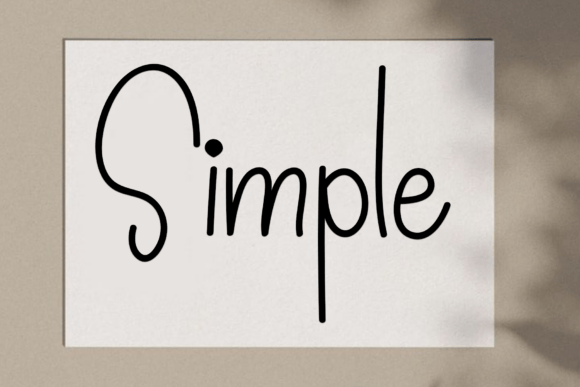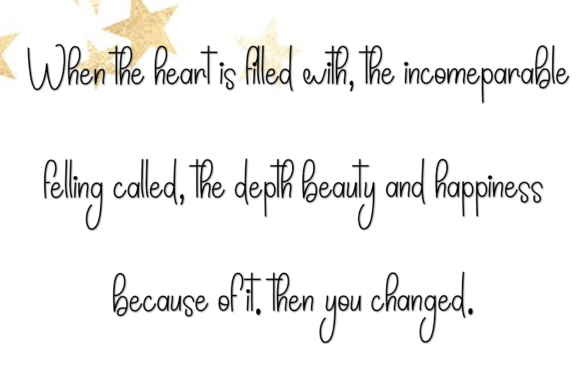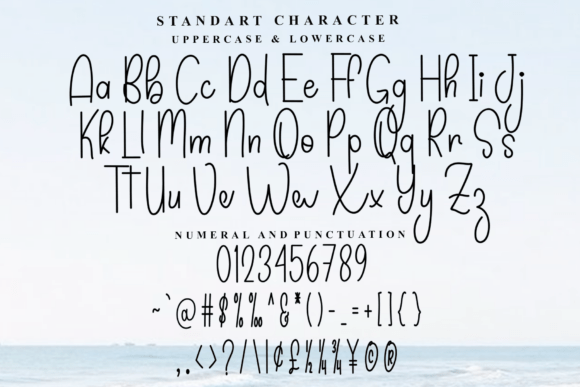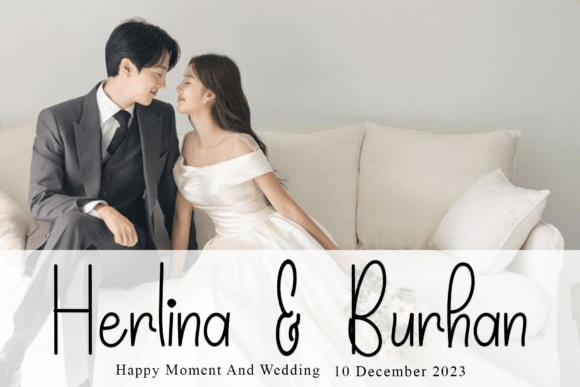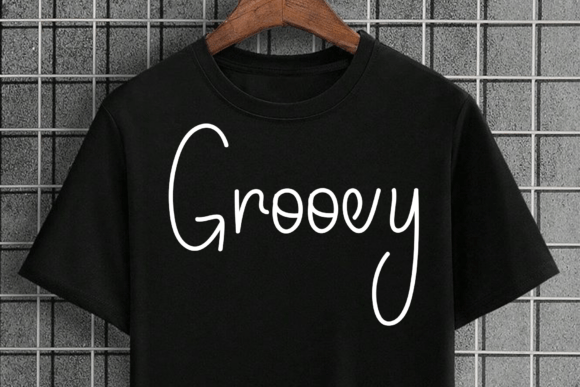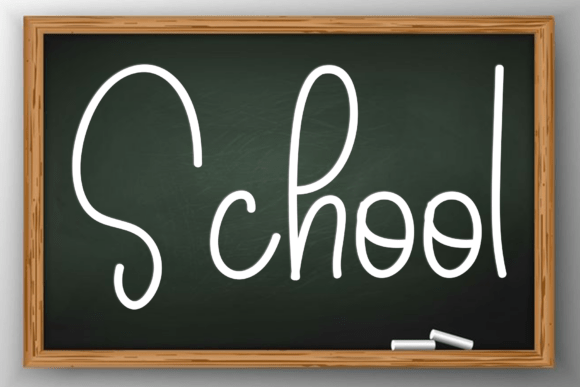
Introduction to Script Autography Font
Add a touch of personal charm to your designs with Script Autography, a simple yet stylish modern script font.
Characterized by its clean, monoline weight and playful, handwritten flow, this typeface captures the effortless feel of a natural signature Its tall ascenders and rhythmic curves make it an excellent choice for projects that need a friendly, approachable, and authentic human touch.
Key Features of Script Autography Font
Why Choose Script Autography Font?
Script Autography Font offers exceptional quality and versatility, making it a valuable addition to your design toolkit. Whether you’re creating for personal projects or commercial use, Script Autography Font delivers professional results.